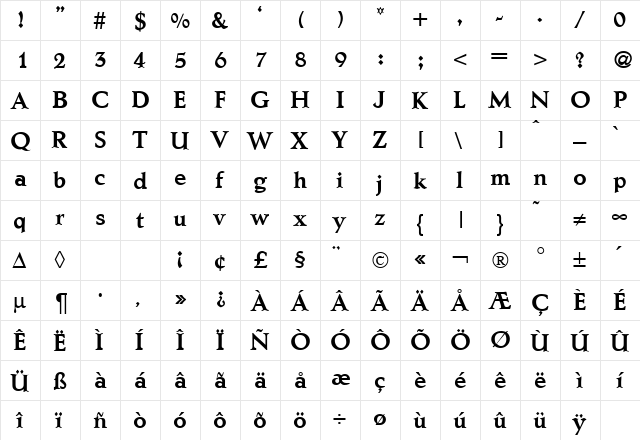
Aesop Bold
Design Context for Aesop Typeface
Aesop is a composed and adaptable typeface that performs quietly and consistently across a wide range of design contexts. The heavy weight commands attention and anchors typographic hierarchies.